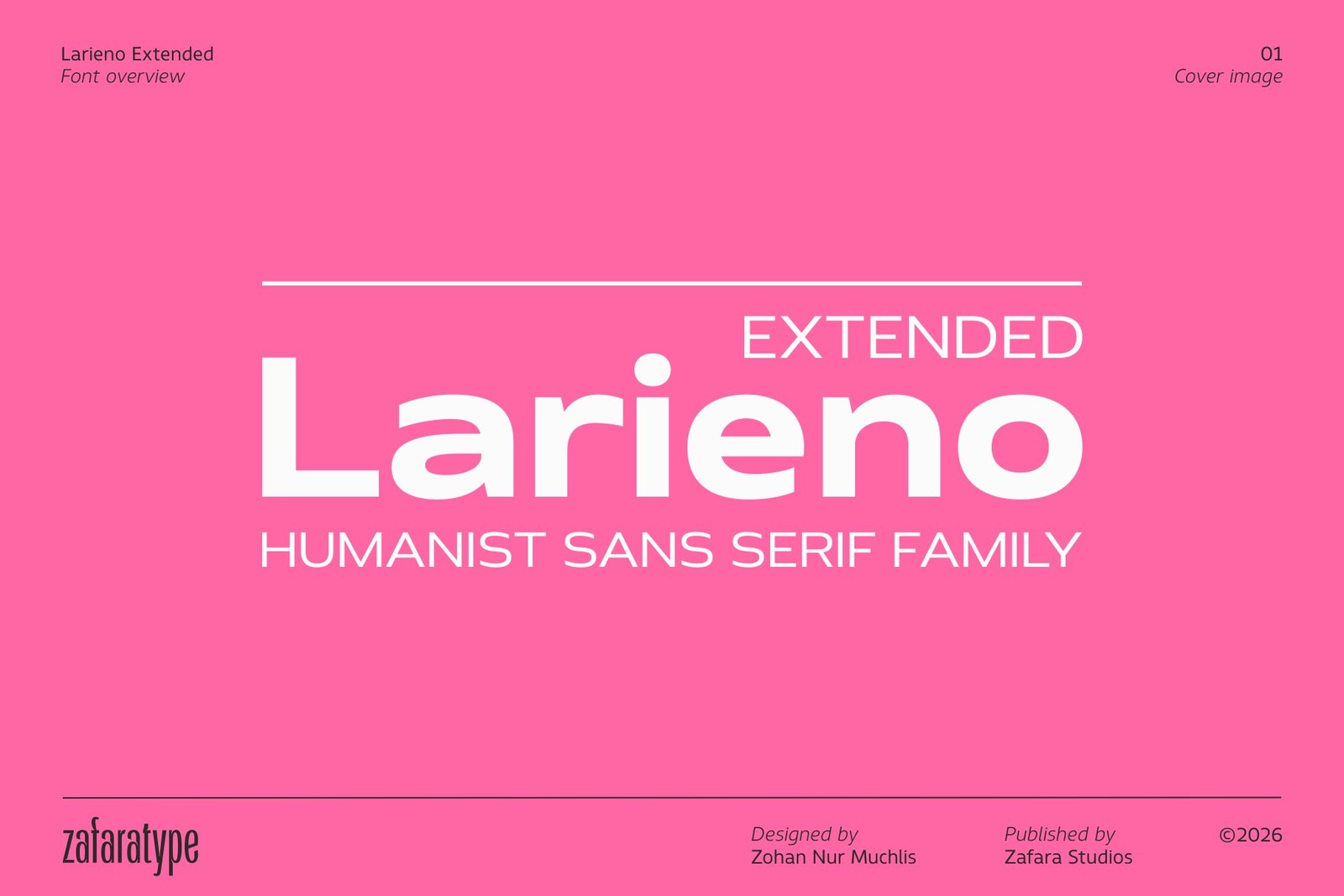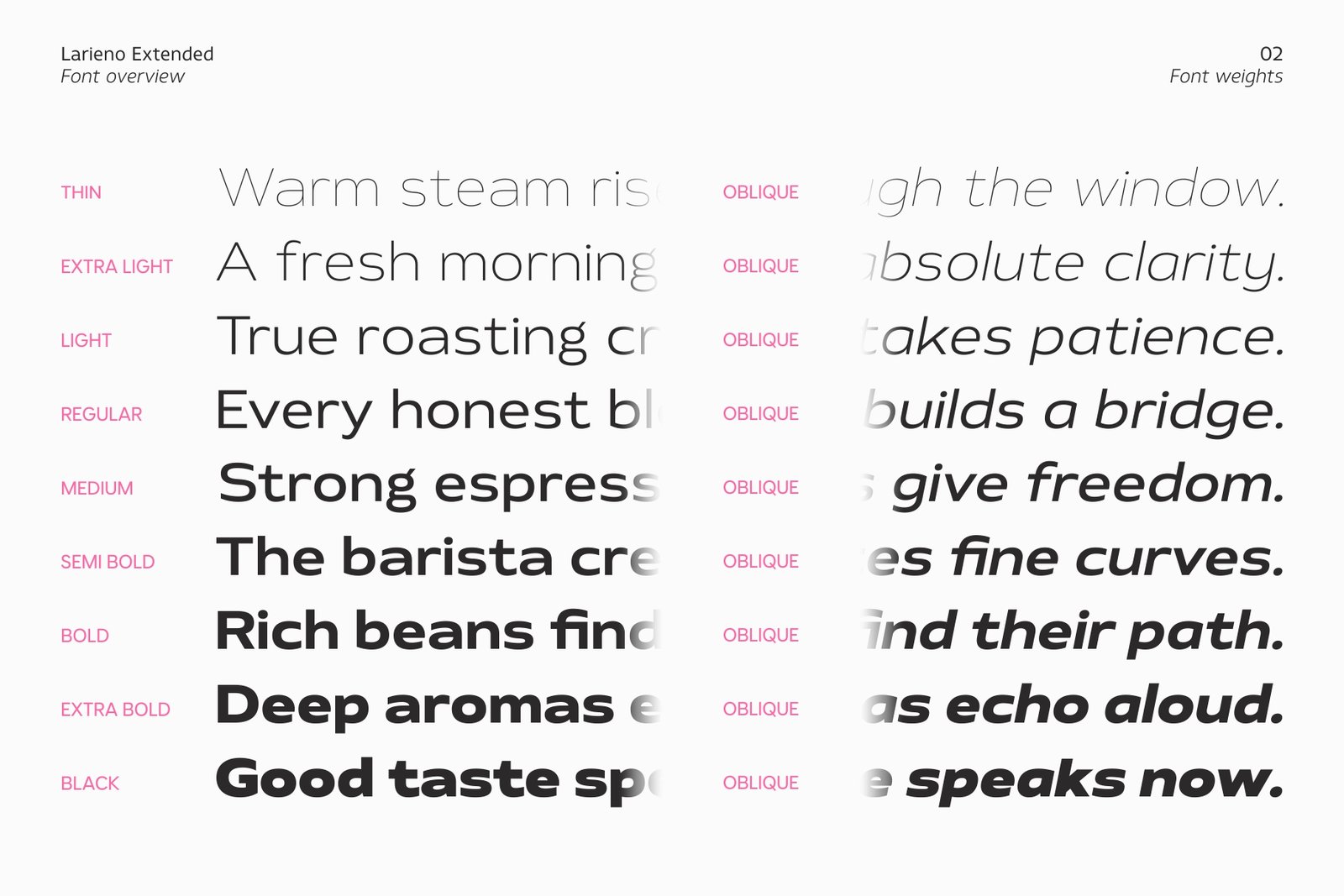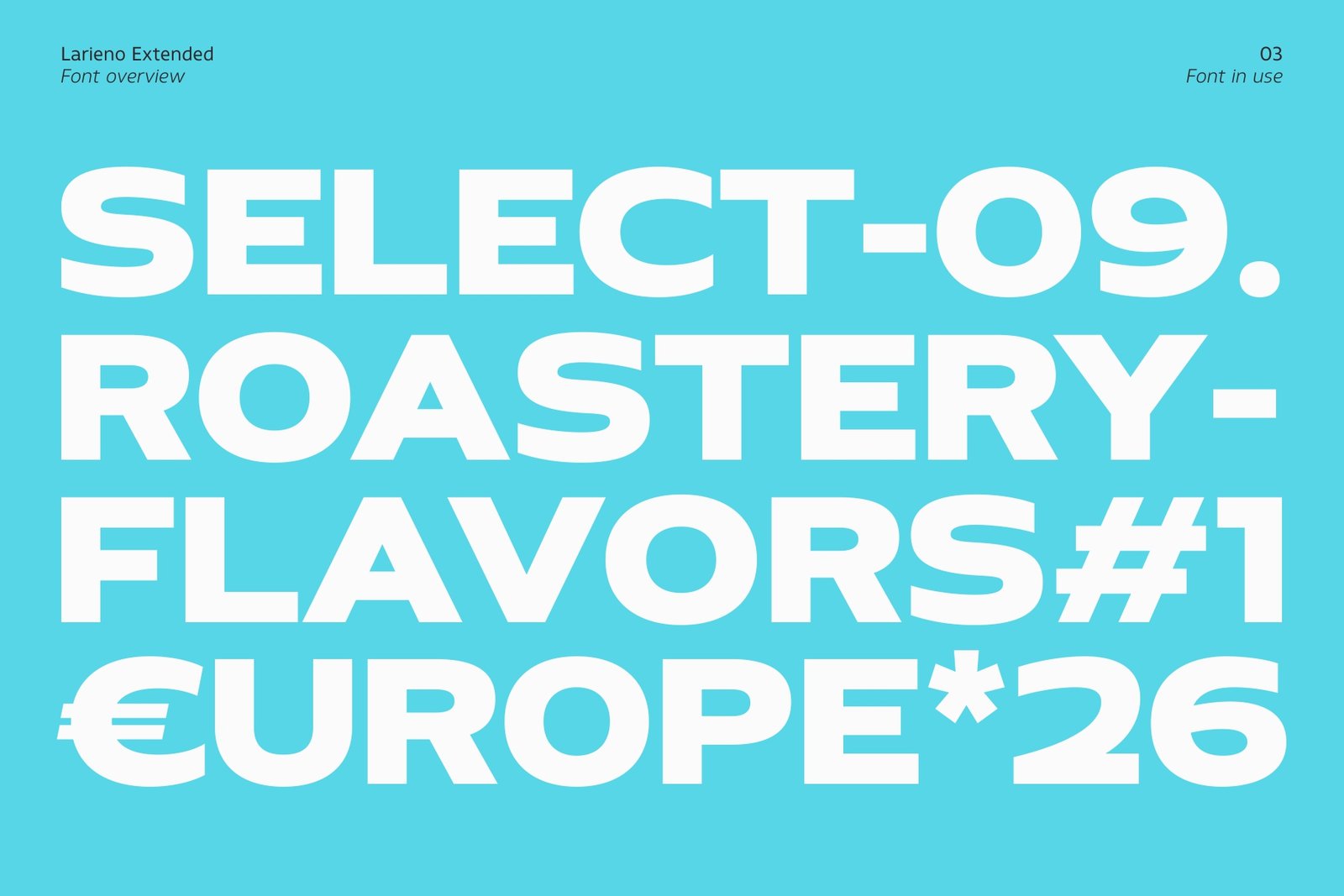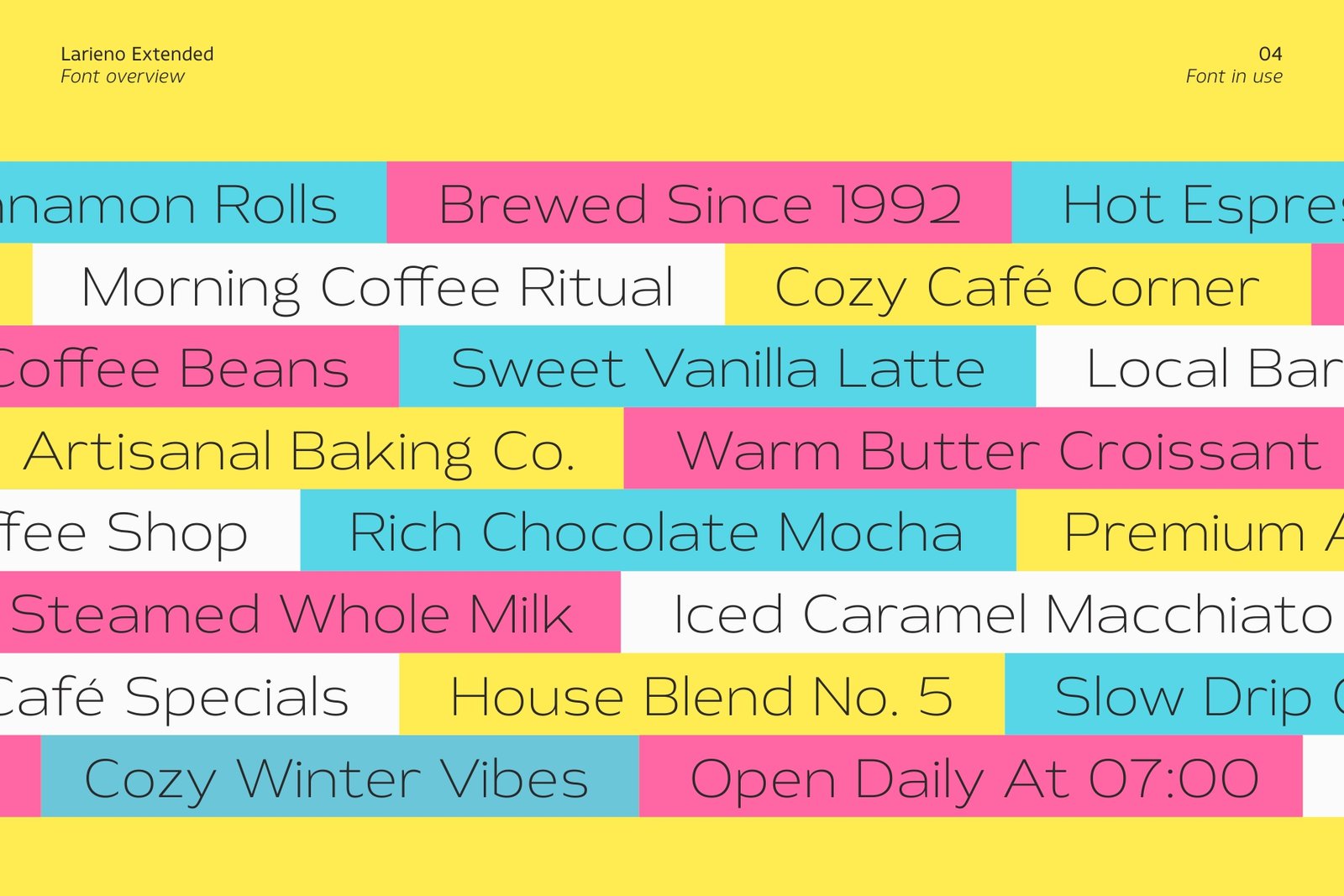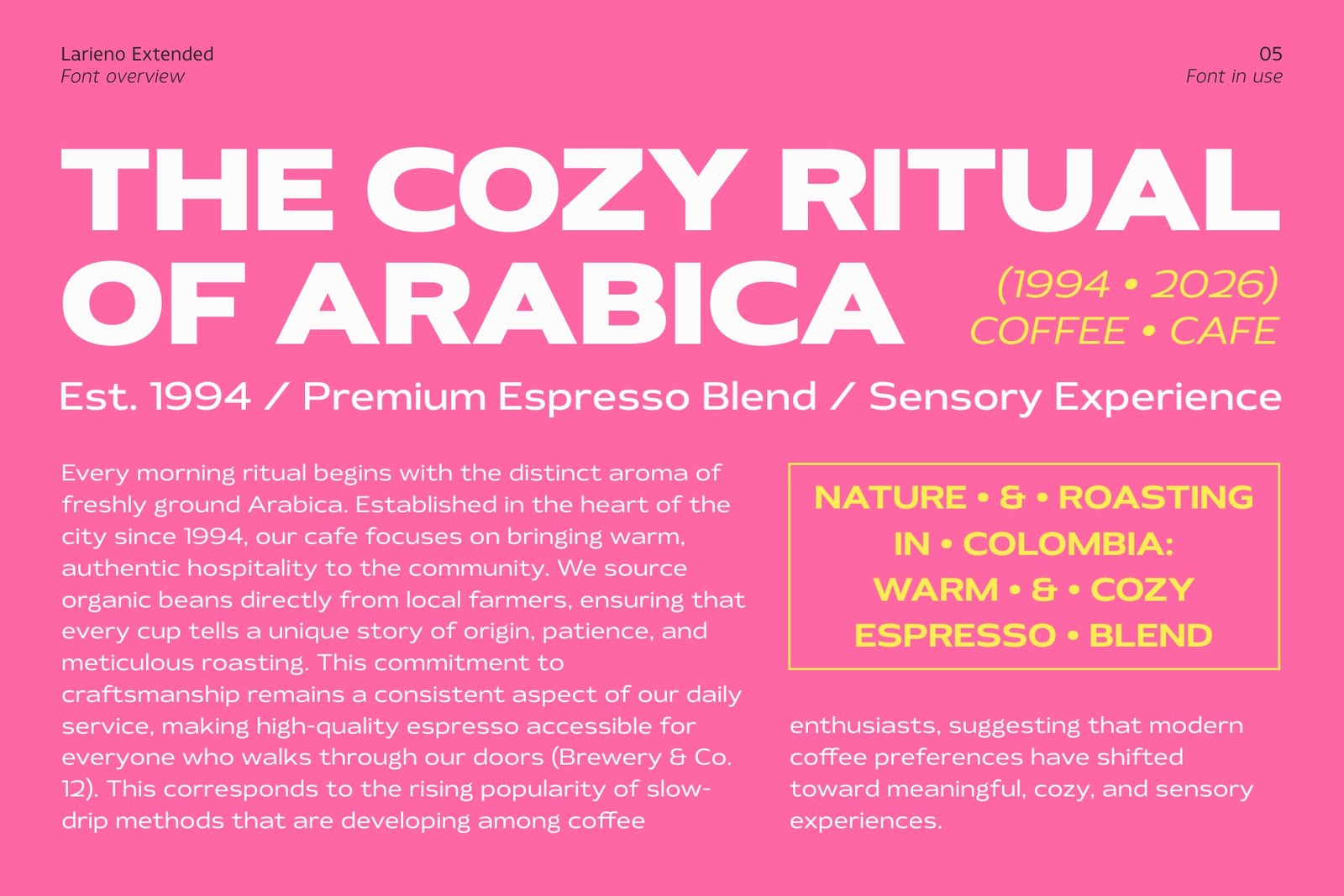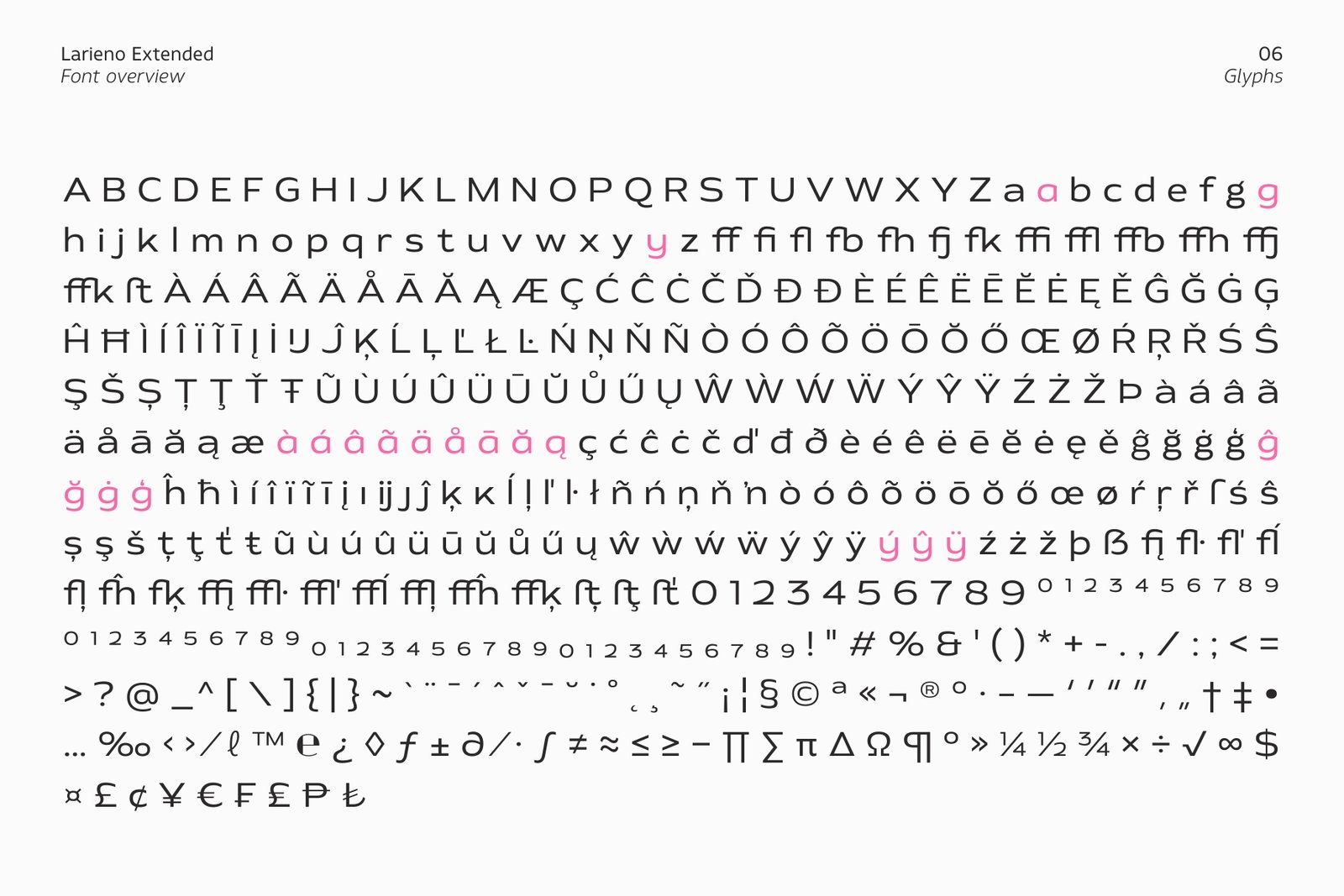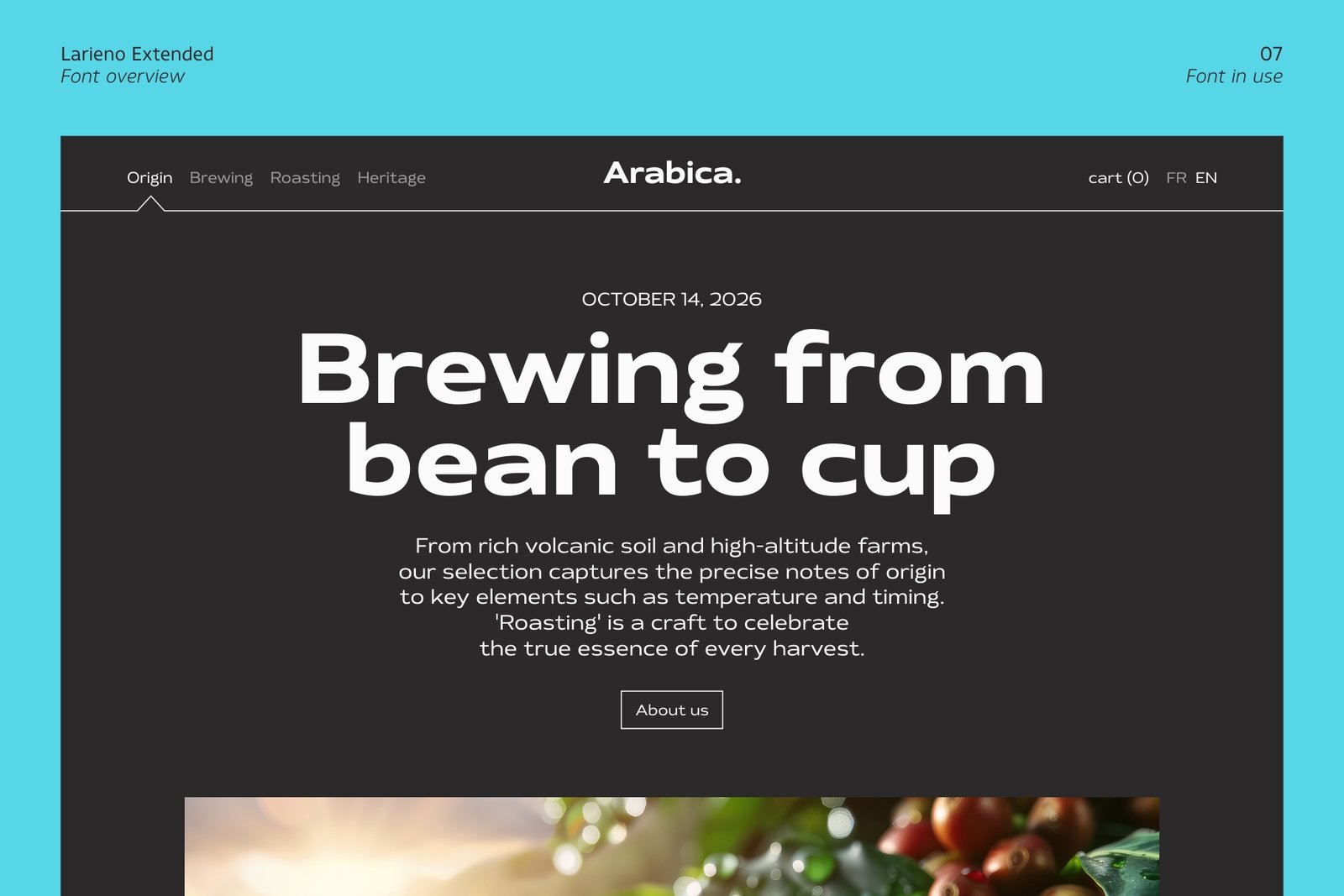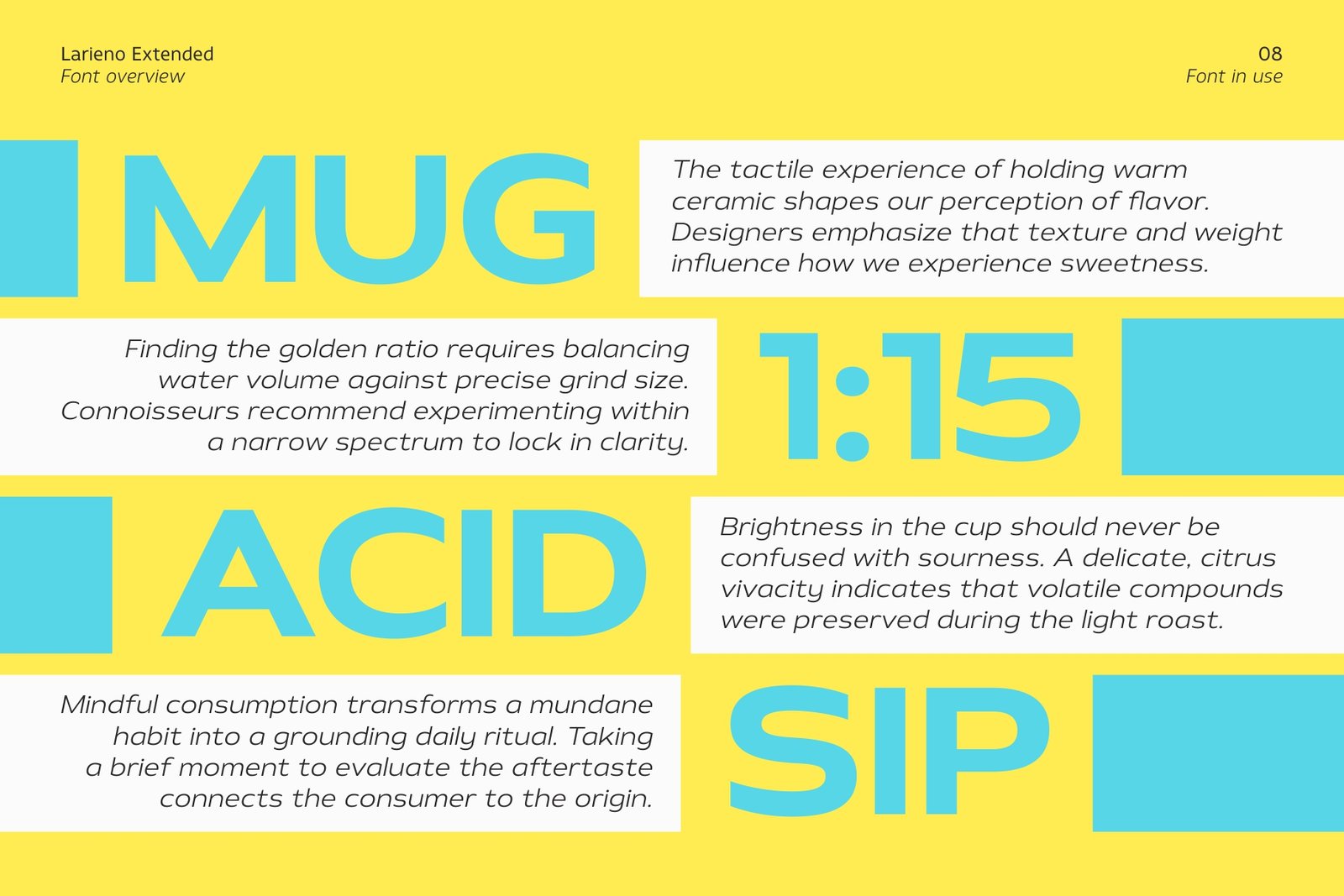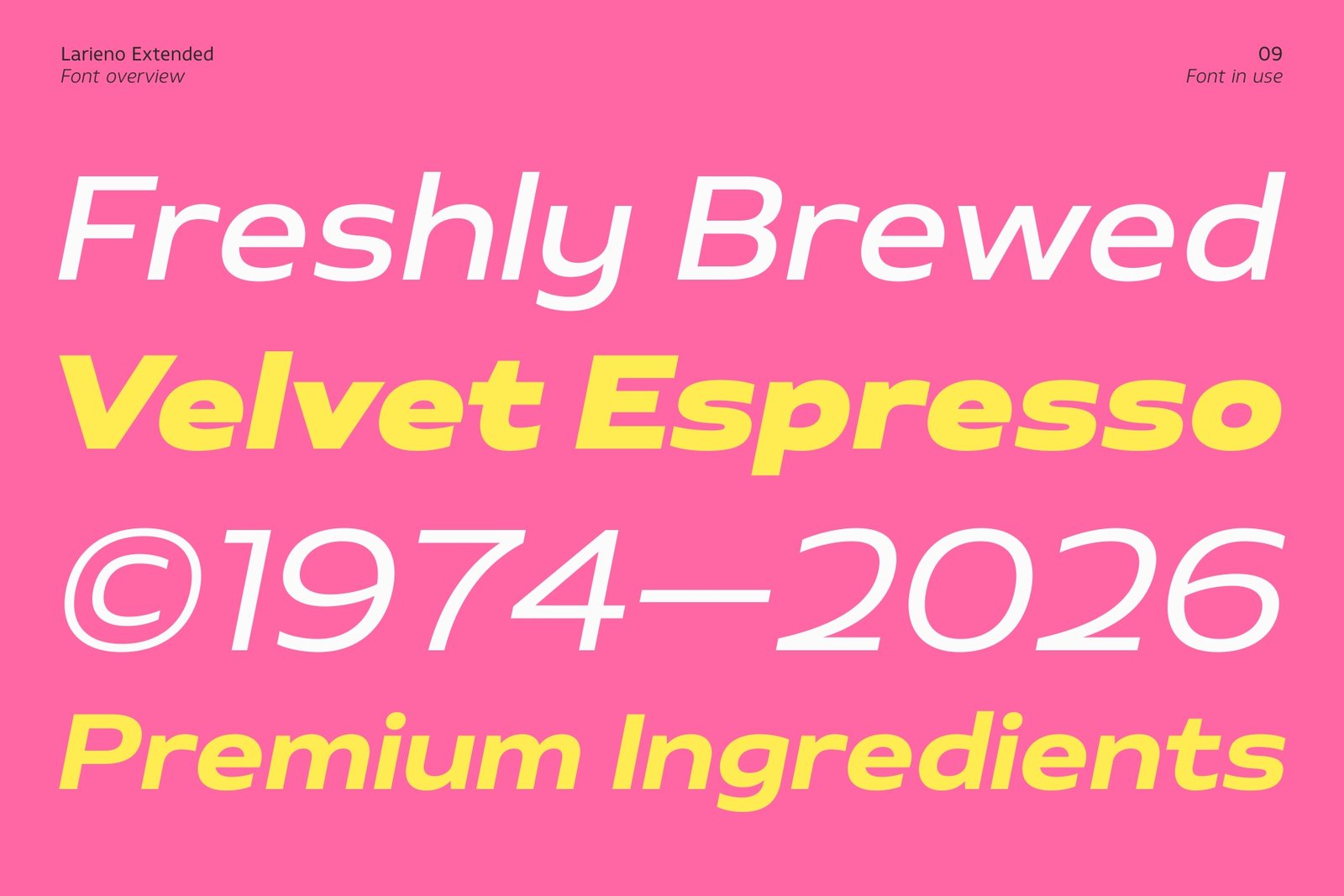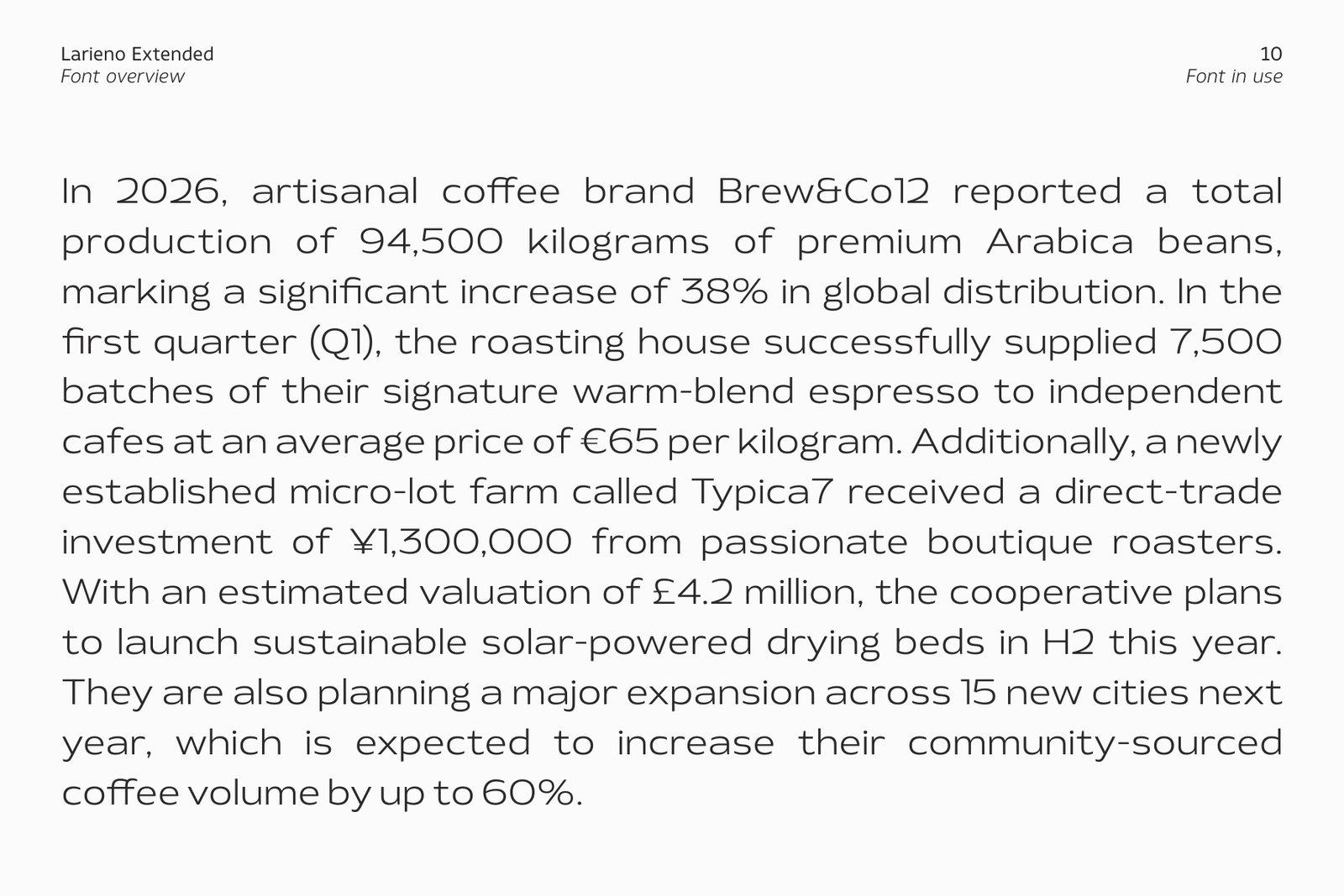
Larieno Extended typeface cover image in bold white typography over a bright pink background.
The official cover presentation slide of Larieno Extended typeface showing its wide, open proportions, clean letterforms, and confident modern look.
Heavyweight bold display typography featuring words like Select, Roastery, and Flavors typed in Larieno Extended on a bright cyan background.
Diverse coffee-themed phrases typeset in different weights of Larieno Extended font arranged in colorful horizontal blocks.
A magazine-style editorial page layout about Arabica coffee, typeset completely in Larieno Extended.
The complete glyph map of Larieno Extended displaying uppercase, lowercase, numbers, and Latin language accent marks.
A dark-themed website header mockup about coffee brewing using Larieno Extended font for web interface design.
Big bold words like Mug, Acid, and Sip combined with small text blocks on a bright yellow and blue grid layout.
Larieno Extended Oblique text reading Freshly Brewed Velvet Espresso in white and yellow letters on a pink background.
A full paragraph of text typeset in Larieno Extended, proving its clean look and high readability in body text.
Multilingual text examples showing Latin-based accents and diacritics typeset in Larieno Extended on a bright cyan background.
A grid layout demonstrating OpenType features like superscripts, ligatures, fractions, and alternates in Larieno Extended on a yellow background.